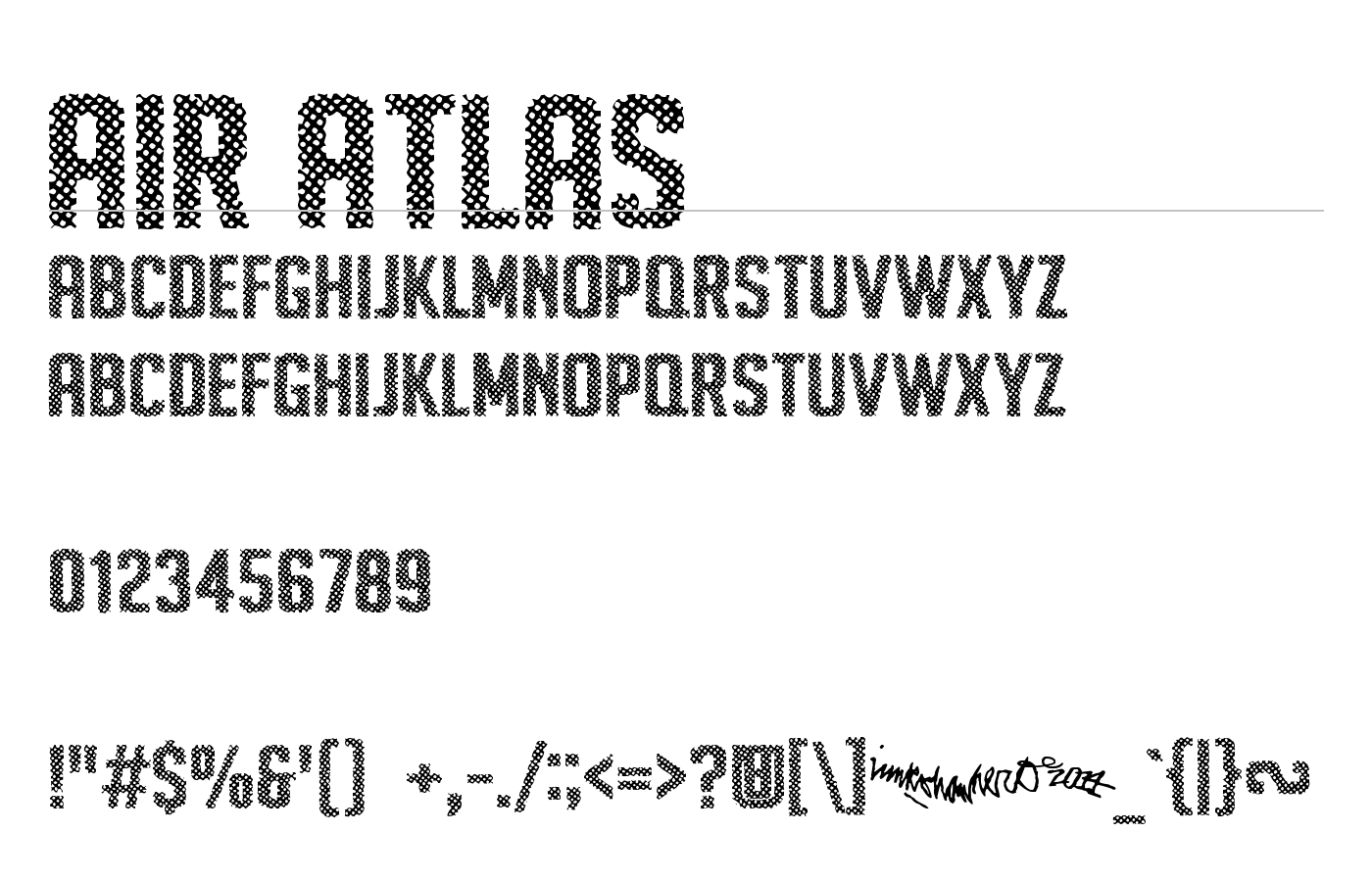
Air Atlas is a unique sans serif display font characterized by its bold, condensed letterforms filled with a distinct crosshatch texture, giving it a retro and industrial vibe. Its all-caps design with evenly spaced letters makes it perfect for striking headlines, logos, and posters that need a strong, vintage-inspired presence. This font works best in creative, edgy branding and editorial designs where eye-catching style and bold impact are essential.
Air Atlas Font